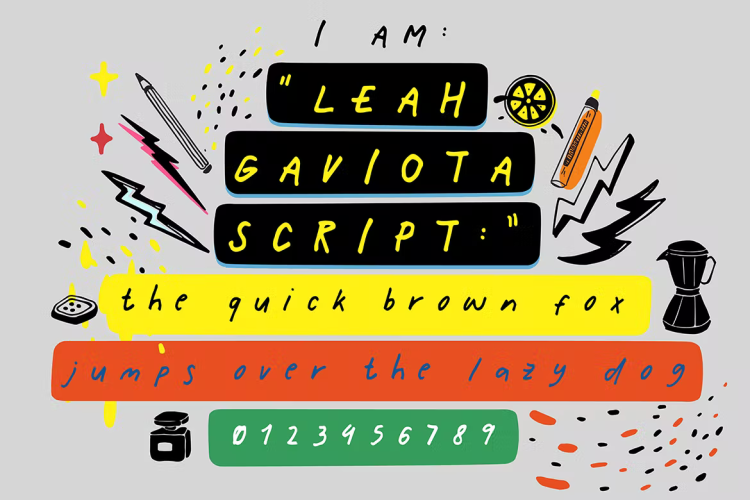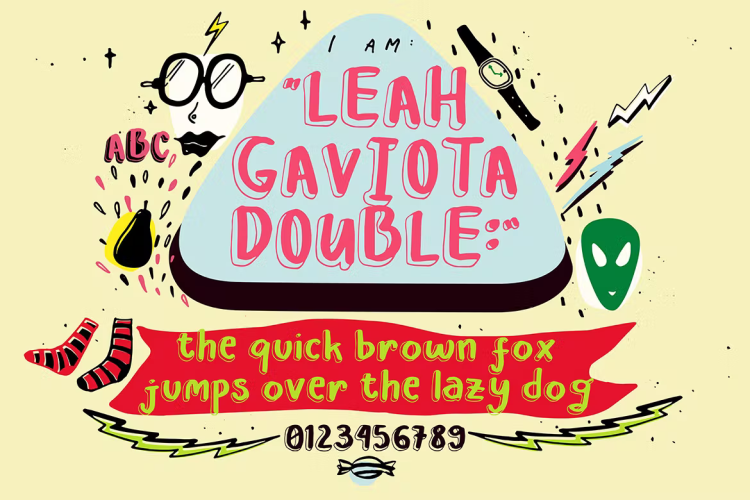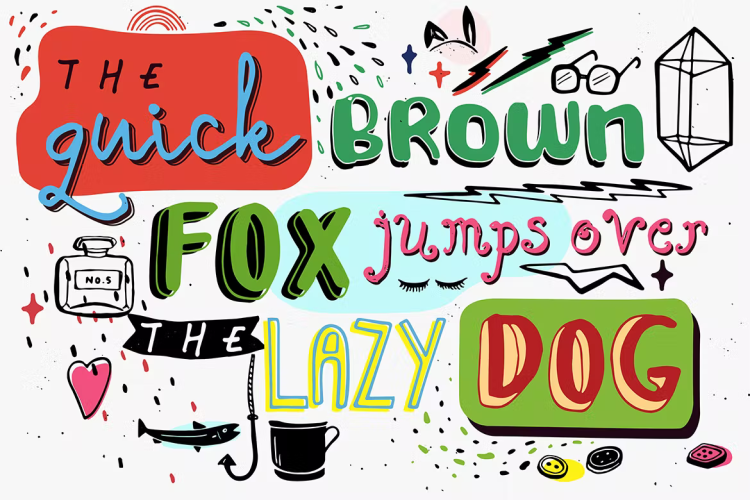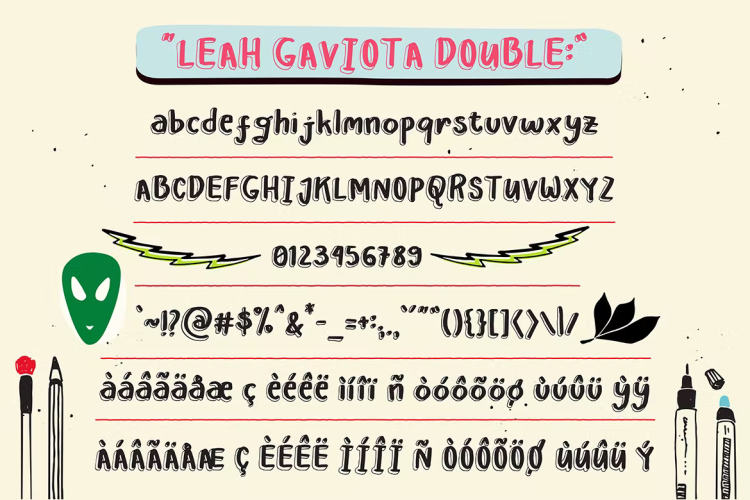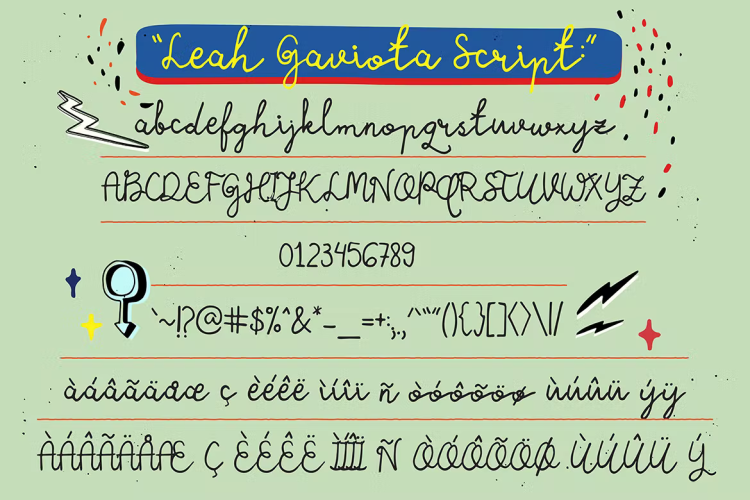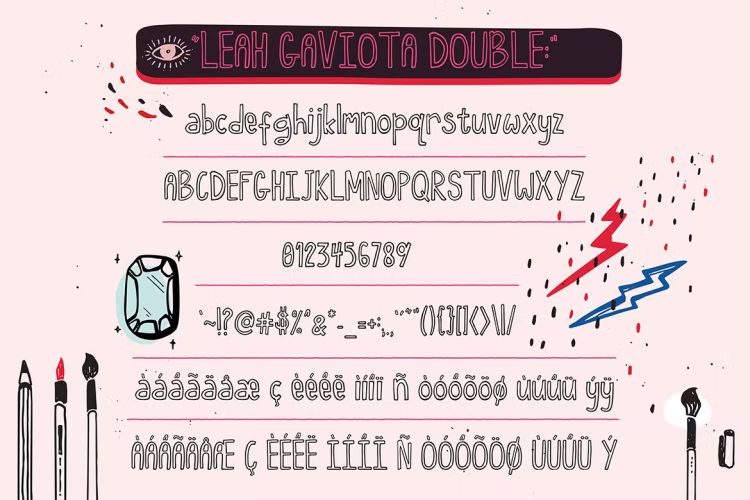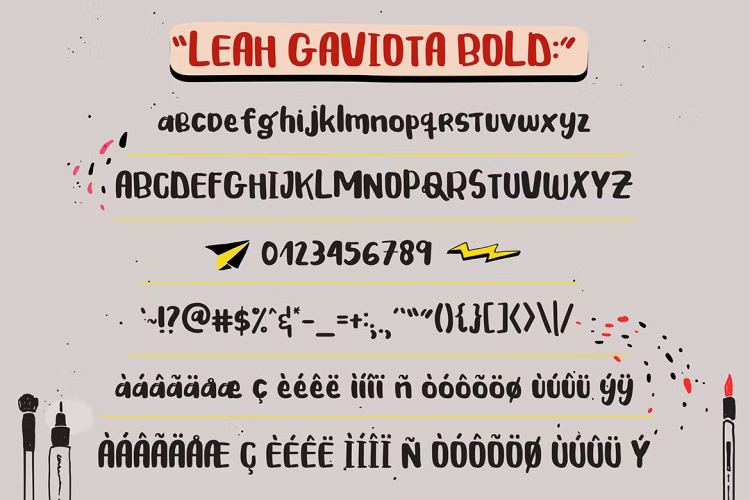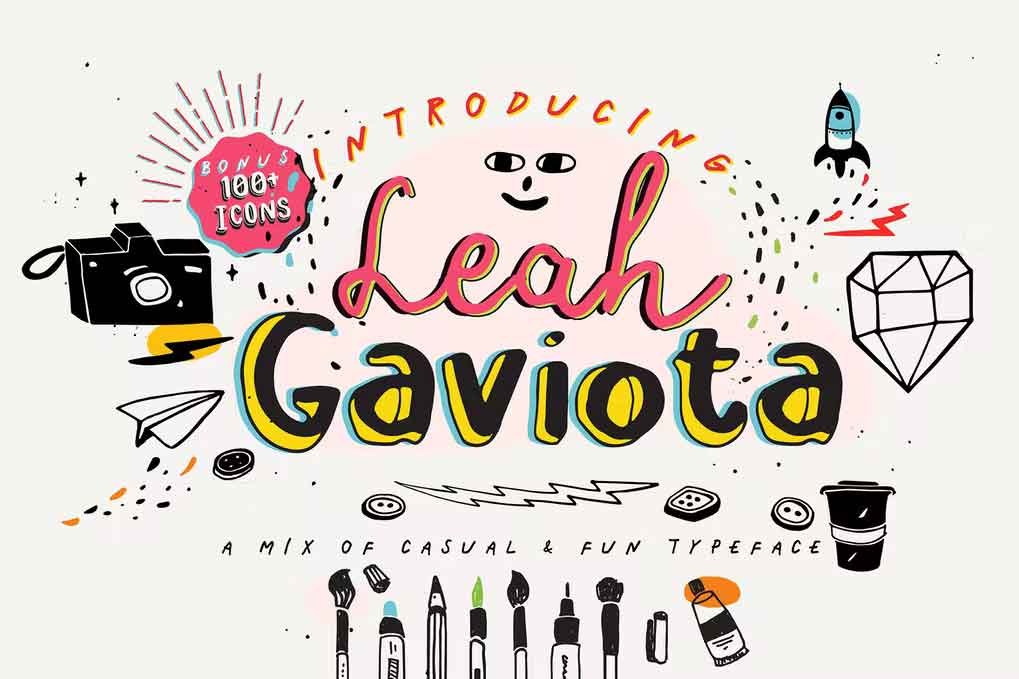
Leah Gaviota Font
Leah Gaviota is a mix of multiple type of font: script, bold, outline, serif & sans-serif, that you can use to create a casual, artisan work. With its 6 different look,…
Leah Gaviota is a mix of multiple type of font: script, bold, outline, serif & sans-serif, that you can use to create a casual, artisan work.
With its 6 different look, Leah Gaviota family is best for your signature, greeting card title, badge and sticker, logo and return address, web design & text, some cover design and so forth, you decide!
Leah Gaviota comes with accented glyphs for international language (check preview images to see which glyphs are included). And to make your artwork even cooler, all those mini illustrations in the preview images are included! There are 100+ icons you can mix & match to your design.
Leah Gaviota Font gives long-form text a classic, trustworthy rhythm — ideal for magazine spreads, annual reports and book interiors.
Pair Leah Gaviota Font with generous letter-spacing for wordmarks in fashion, hospitality, wine and jewellery branding.
Use Leah Gaviota Font for slide titles in Keynote, PowerPoint or Google Slides to add authority without looking dated.
Leah Gaviota Font is a Serif Fonts typeface tagged Bold, Branding, Craft, Script. It works well for headlines, logos, posters, social media graphics and branding projects that need a distinctive serif fonts look.